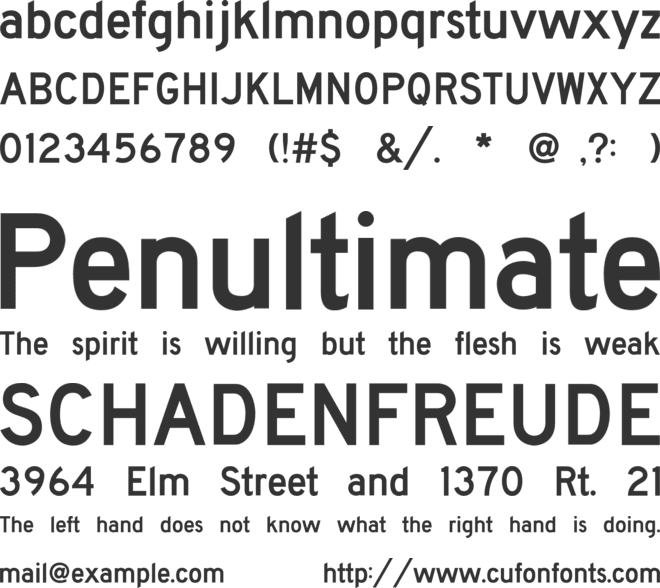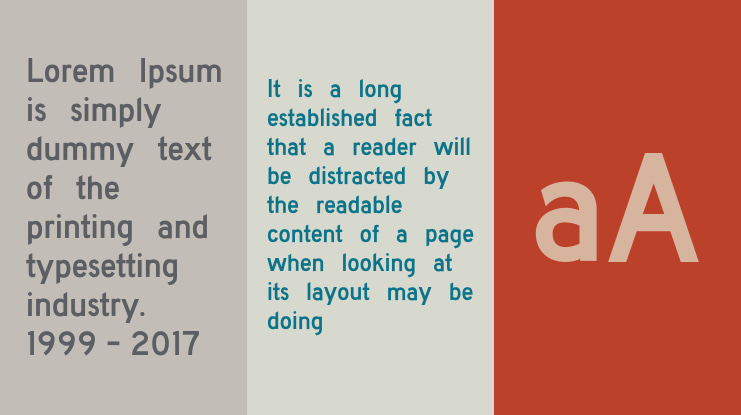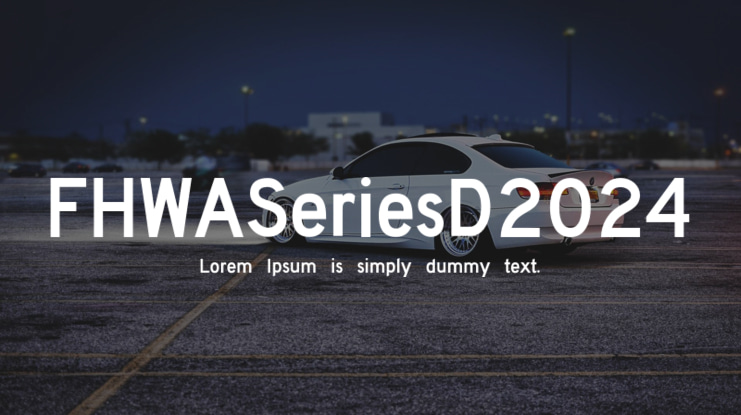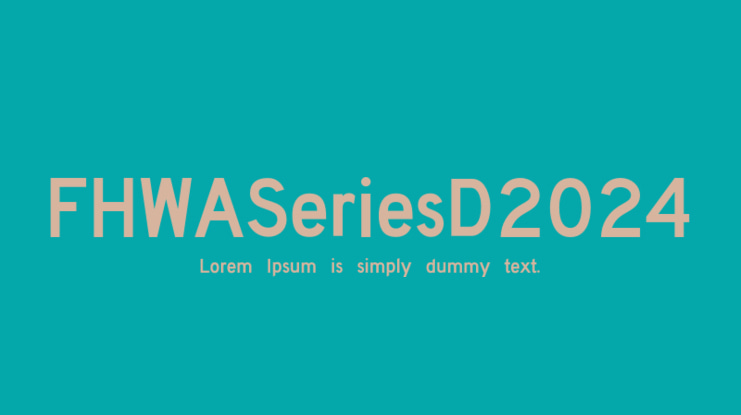
FHWASeriesD2024 Font Family
Suitable for the creation of official road, street, and highway signage in the US. Public domain outlines from the Federal Highway Administration. Includes recent updates to Β’, $, -, +, and :.
Public domain outline and width data from the Federal Highway Administration's Standard Highway Signs manual.